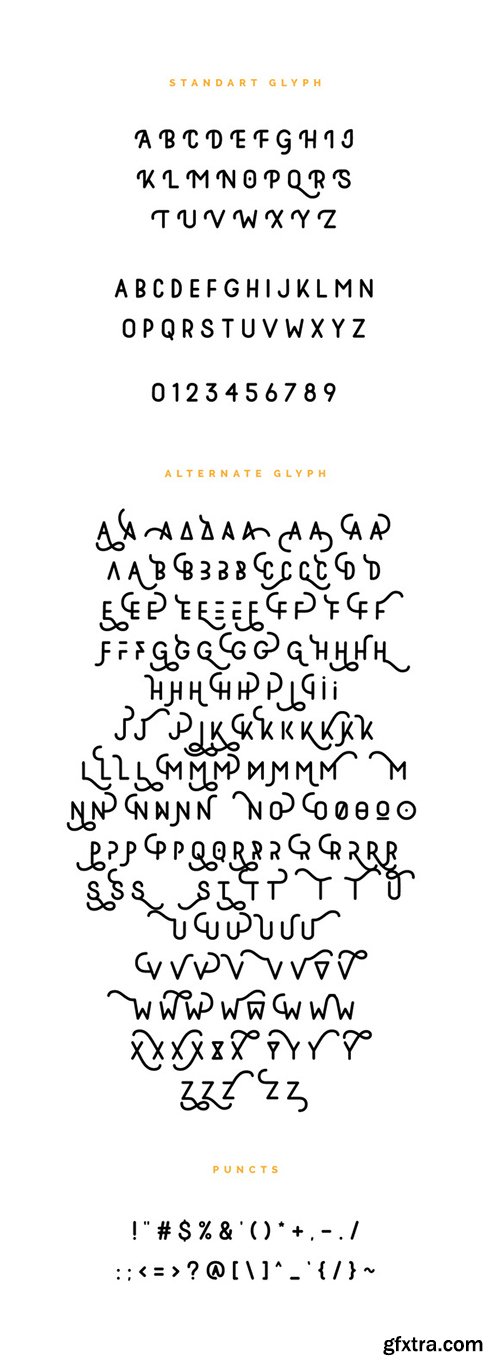
Creativemarket Foldeck FONT 475641
Foldeck is modern display font, every single letters have been carefully crafted to make your text looks beautiful. With massive number of glyph will perfect for many different project ex: quotes, blog header, poster, wedding, branding, logo, fashion, apparel, letter, invitation, stationery, etc.
Foldeck is modern display font, every single letters have been carefully crafted to make your text looks beautiful. With massive number of glyph will perfect for many different project ex: quotes, blog header, poster, wedding, branding, logo, fashion, apparel, letter, invitation, stationery, etc. Foldeck script including massive alternate glyph and beautiful extras. How to access alternate glyphs: Windows Character Map: https://www.youtube.com/watch?v=BScPsiubM1k Adobe Illustrator: https://www.youtube.com/watch?v=y5XTaWYwWA4 FEATURES: Thanks for looking. P A S S W O R D : FONTTTTTTTTTGFXTRA TO MAC USERS: If password doesn''t work, use this archive program: RAR Expander 0.8.5 Beta 4 and extract password protected files without error.